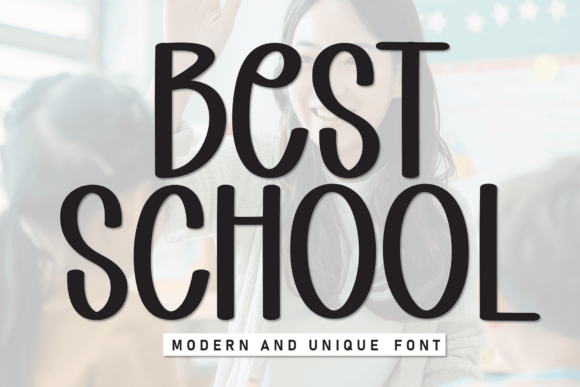
The Perfect Font for a Brighter Learning Experience
Have you ever stared at a blank canvas, trying to find the perfect font to capture the essence of your project? I’m sure many designers can relate to that moment of creative frustration. But what if I told you there’s a font that’s about to make your design journey a whole lot easier? Enter Best School Font, a modern and playful typeface designed to bring a smile to your audience’s faces.
This charming font is more than just a pretty face; it’s a versatile tool that adds a friendly touch to any project. With its clean shapes, soft edges, and well-balanced letterforms, Best School Font is perfect for posters, branding, packaging, and social media graphics. As a designer, you’ll appreciate its readability and style, making it an invaluable addition to your toolkit.
Best School Font Key Features
- Unique Characteristics: The font features a clean and modern design, making it perfect for educational materials, presentations, and documents.
Designer Review: Best School Font
Overall, I’d say the “Best School Font” is a decent choice for educational materials, but it has its flaws. Let’s break it down:
- Legibility: The font is clear and easy to read, even at smaller font sizes.
- Professional Look: The font has a clean, modern design that gives it a professional feel.
- Support for Different Languages: The font supports a wide range of languages, making it a good choice for international schools.
- Limited Customization Options: The font doesn’t offer much in terms of customization, which can be limiting for designers who want more control.
- Lack of Distinctiveness: The font is fairly generic and doesn’t stand out from other fonts in its category.
- Not Ideal for Handwritten Text: The font is not designed for handwritten text, which can make it look unnatural when used for cursive or script.
Overall, the “Best School Font” is a solid choice for educational materials, but it’s not without its limitations. If you’re looking for a font that’s easy to read and professional-looking, this might be a good option. However, if you’re looking for something more unique or customizable, you might want to consider other options.
The Best School Font is ideal for:
- School logos and branding.
- Academic posters and presentations.
- Brochures and flyers for educational institutions.